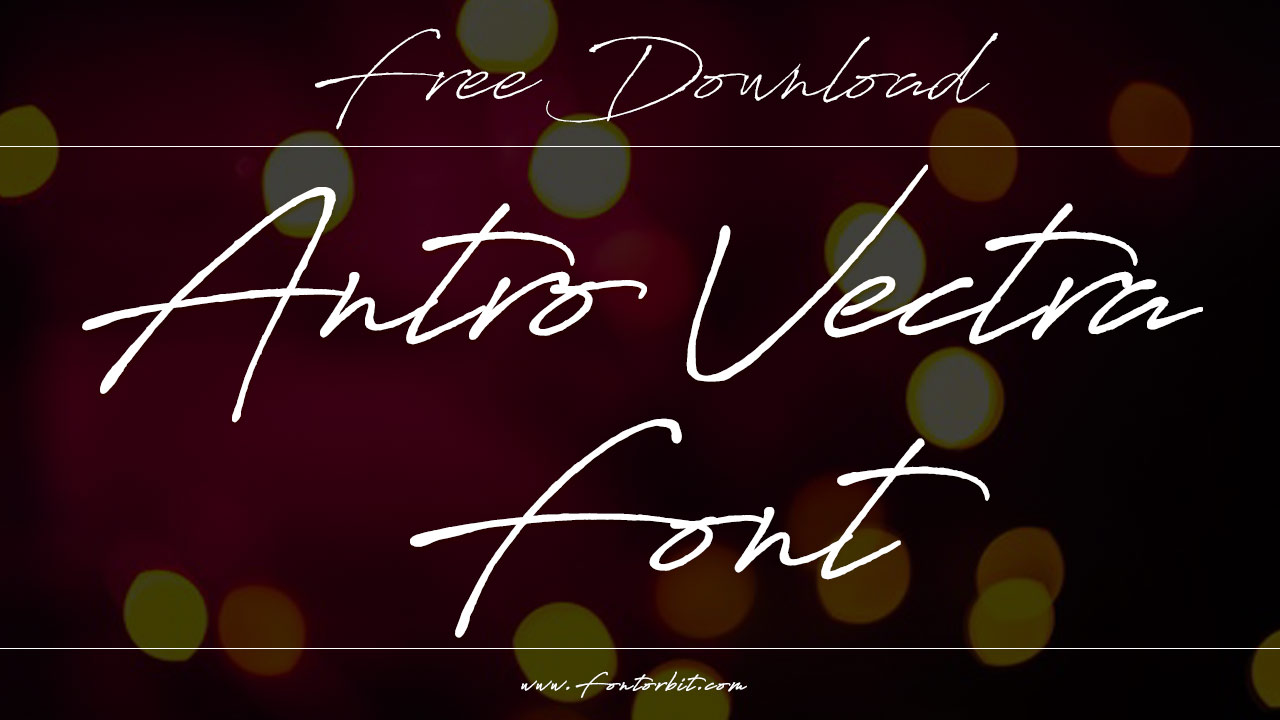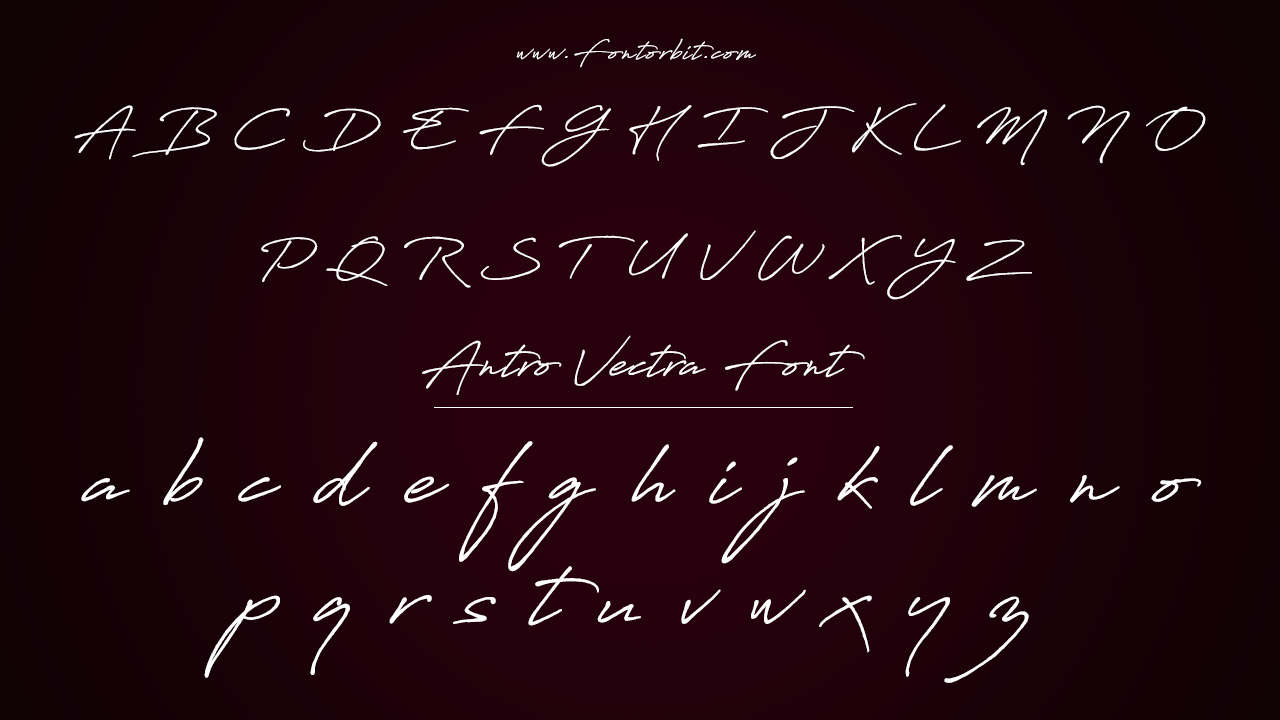
The Antro Vectra Font Family is a stunning collection of handwritten fonts. Known for its impressive handwriting and unique style, it offers special characters and a handwritten appearance, perfect for modern fonts and calligraphy fonts enthusiasts. Designed by Youssef Habchi, this font family supports multiple languages, making it versatile for global projects.
Key Takeaways:
- A perfect choice for logos, magazine covers, and packaging designs.
- Combines the elegance of script fonts with the charm of vintage fonts.
- Suitable for retro fonts, fancy fonts, and typewriter fonts lovers.
Antro Vectra Font Information
| Name | Antro Vectra Font |
|---|---|
| Style | Handwritten Script Font |
| Designer | Youssef Habchi |
| Type | Script, Decorative, Modern |
Font Family Includes
The Antro Vectra Font Family includes:
- Antro Vectra Bolder
- Antro Vectra Regular
Where Antro Vectra Is In Use
The Antro Vectra Font has found applications in diverse creative fields:
- Logos: Ideal for creating unique brand identities.
- Book Covers: Enhances the appeal of literary works.
- Magazines: Frequently used for stylish magazine covers and layouts.
- Packaging Design: Adds a sophisticated touch to product packaging.
- Clothing Brands: Used for designers creating standout apparel.
- Websites: Perfect for modern and elegant website typography.
- Posters and Banners: Makes headlines visually appealing.
- Vintage and Retro Designs: Complements designs inspired by classic eras.
The Antro Vectra Font Family by Youssef Habchi is a perfect font for designers looking to combine elegance, creativity, and versatility. With its handwritten appearance, unique style, and compatibility with modern fonts, it has earned a spot among the most popular fonts. Whether you need a typeface for a logo, magazine, or packaging design, this perfect font promises to elevate your project.
1.What Is The Antro Vectra Font?
The Antro Vectra Font is a handwritten script font designed by Youssef Habchi.
2.Who Designed The Antro Vectra Font?
The font was created by Youssef Habchi, a renowned designer.
6.What Styles Does The Antro Vectra Font Family Include?
It includes script, bolder, decorative, and regular styles.
7.Is Antro Vectra Suitable For Logos?
Yes, its handwritten appearance makes it ideal for logos.
8.Does Antro Vectra Support Multiple Languages?
Yes, it supports multiple languages with special characters.
9.What Makes Antro Vectra Unique?
Its handwritten appearance, decorative features, and versatility set it apart.
10.Are There Similar Fonts To Antro Vectra?
Yes, similar fonts include calligraphy fonts, vintage fonts, and fancy fonts.